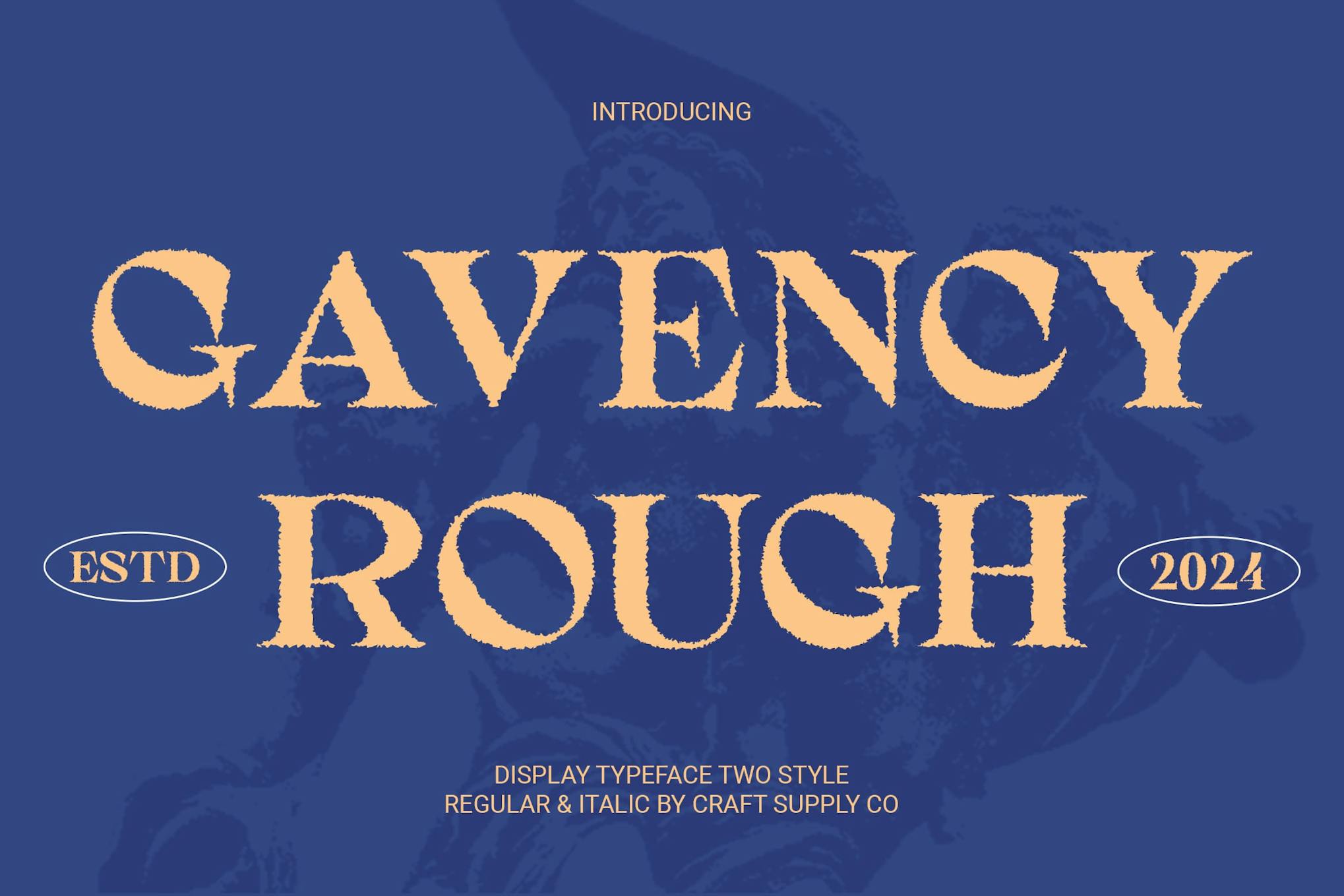
Gavency Rough Font
Perfect for posters, logos, branding, social media graphics, packaging, and creative editorial projects.
The Gavency Rough Font excites designers with its bold, textured strokes and rugged, hand-crafted aesthetic that adds a raw, authentic feel to any design.
Font families: Gavency Rough Regular, Gavency Rough Bold.
The Gavency Rough Font Free Download is a powerful typeface designed to bring strong personality and visual impact to your projects. Its rough, distressed edges create an organic and bold look, ideal for brands and creatives seeking to express authenticity and boldness. Whether you’re working on logos, posters, or social media visuals, Gavency Rough demands attention with its textured style.
One of the key strengths of Gavency Rough Font is its perfect balance between roughness and readability. Despite its distressed design, it remains clear and effective for headlines and display text, ensuring your message is delivered loud and strong.
In branding, Gavency Rough conveys creativity, strength, and originality. It pairs excellently with earthy tones, textured backgrounds, and bold imagery, helping brands build memorable and grounded identities.
For digital projects, this font enhances website headers, social media posts, and promotional materials with its hand-crafted, textured look. Its energetic character guarantees your digital content stands out with genuine personality.